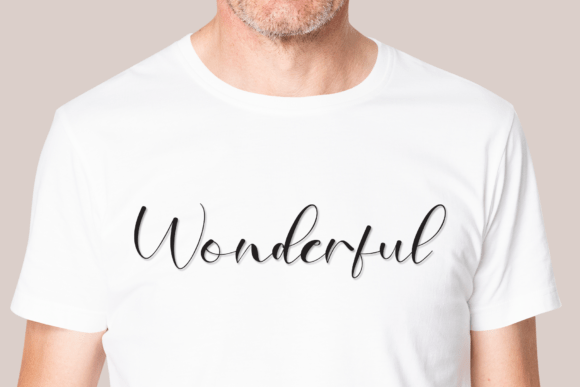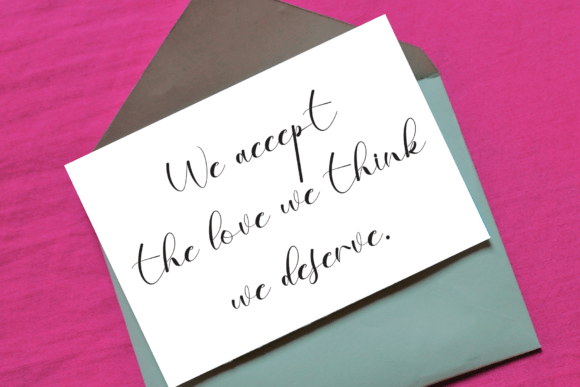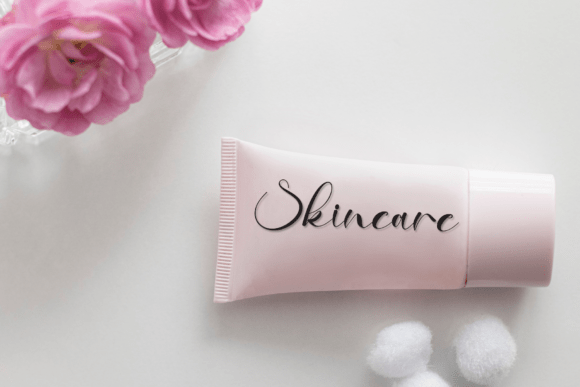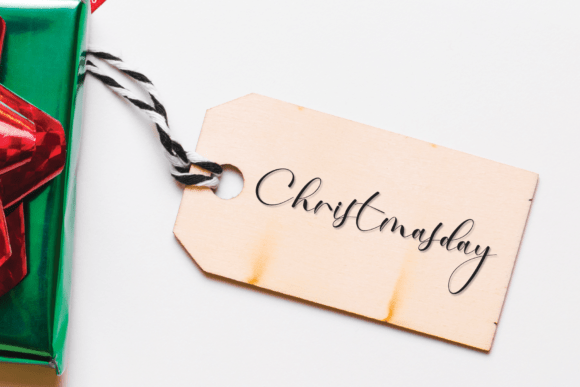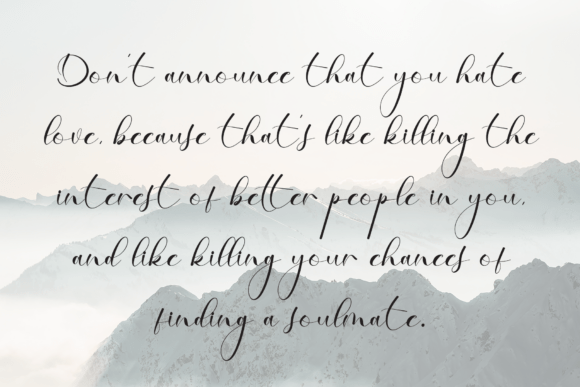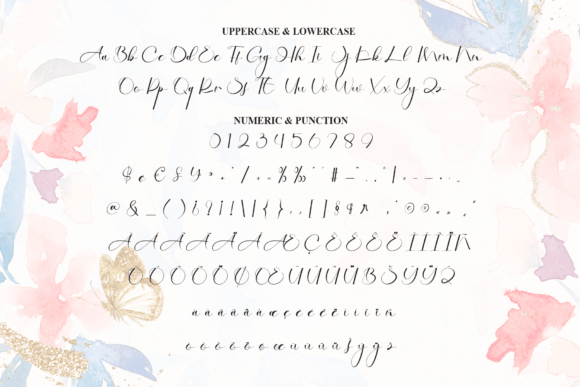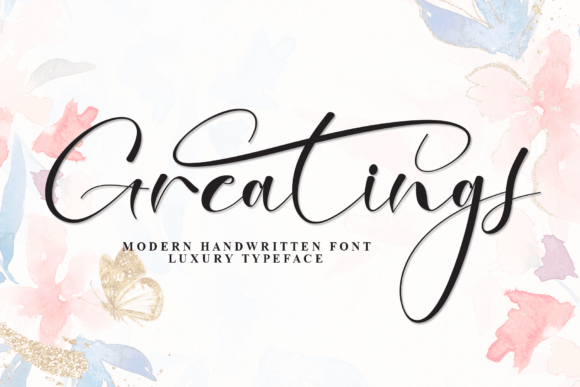
Introducing Greatings Font: Elevate Your Designs with Extraordinary Style
Are you tired of using the same old fonts for your designs? Look no further! Greatings Font is here to revolutionize the way you create, with special creative products that will give you an extraordinary experience. Our latest style letters are perfect for a wide range of applications, from wall displays and wedding invitations to social media post logos, advertisements, product packaging, and more.
Unleash Your Creativity with Greatings Font
Greatings Font is designed to help you take your designs to the next level. Whether you’re a professional designer, crafty DIY enthusiast, or small business owner, our font is perfect for anyone looking to add a touch of elegance and sophistication to their work. With Greatings Font, you can create stunning visual content that sets you apart from the crowd.
Greatings Font is incredibly versatile, making it perfect for a wide range of design projects, including:
• Wall displays: Create stunning wall art, quotes, and posters that will grab attention.
• Wedding invitations: Add a touch of elegance and sophistication to your wedding stationery.
• Social media post logos: Elevate your social media presence with custom logos and graphics.
• Advertisements: Create eye-catching ads that will stand out from the competition.
• Product packaging: Add a professional touch to your product packaging and labels.
• Product designs: Create unique and stylish product designs that will set you apart.
• Labels: Design custom labels for your products, gifts, or promotional materials.
• Photography: Add a touch of style to your photos with custom watermarks and overlays.
• Invitations: Create beautiful, one-of-a-kind invitations for any occasion.
• Stationery: Elevate your stationery and paper products with custom fonts and designs.
Why Choose Greatings Font?
So why choose Greatings Font over other fonts on the market? Here are just a few reasons:
• Unique and stylish: Our font is designed to help you stand out from the crowd and add a touch of elegance to your designs.
• High-quality: Our font is of the highest quality, ensuring that your designs look professional and polished.
• Versatile: Our font can be used for a wide range of design projects, making it a great value.
Don’t settle for ordinary fonts that blend in with the crowd. With Greatings Font, you can create extraordinary designs that will leave a lasting impression. Whether you’re a professional designer or a DIY enthusiast, our font is perfect for anyone looking to add a touch of style and sophistication to their work. So why wait? Get Greatings Font today and start creating like a pro!